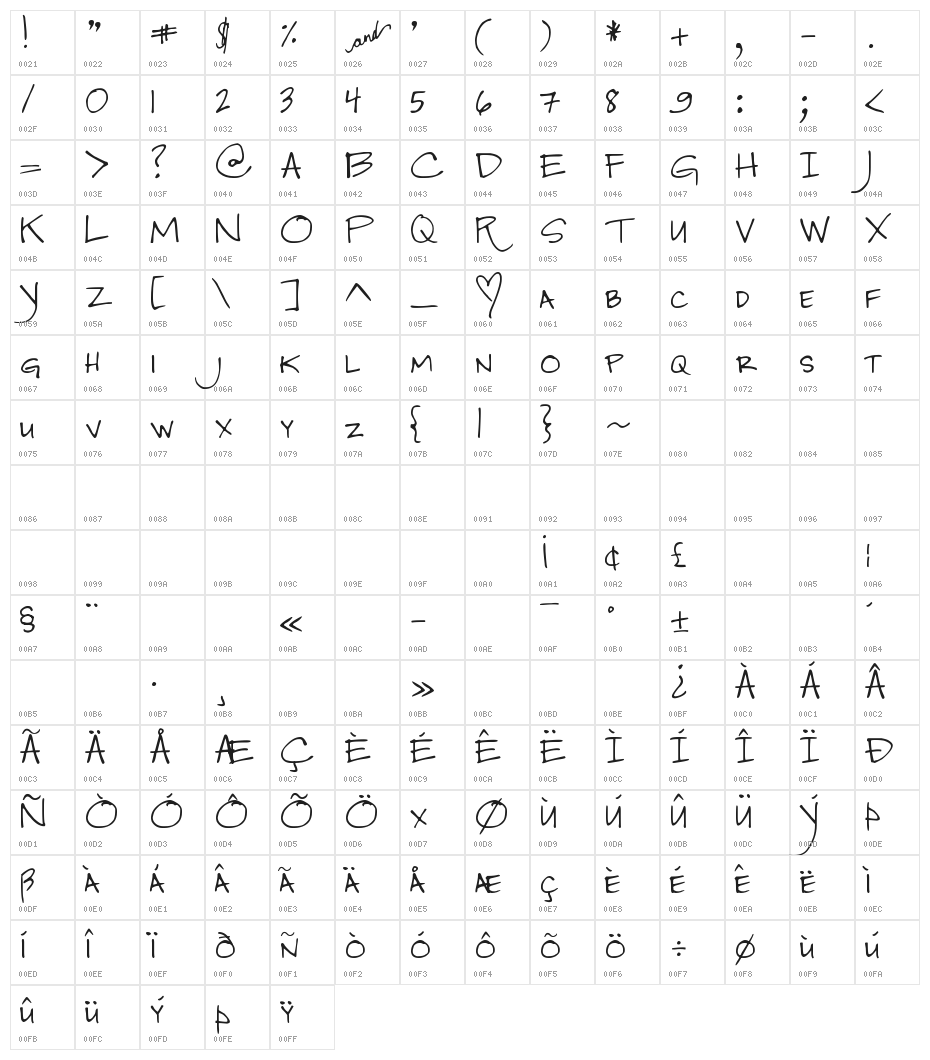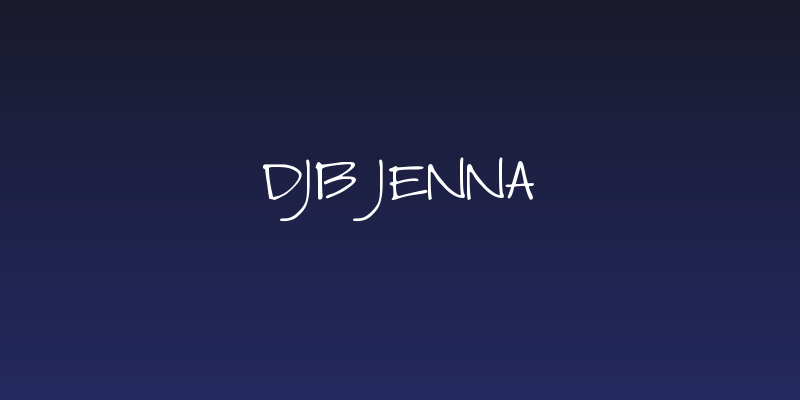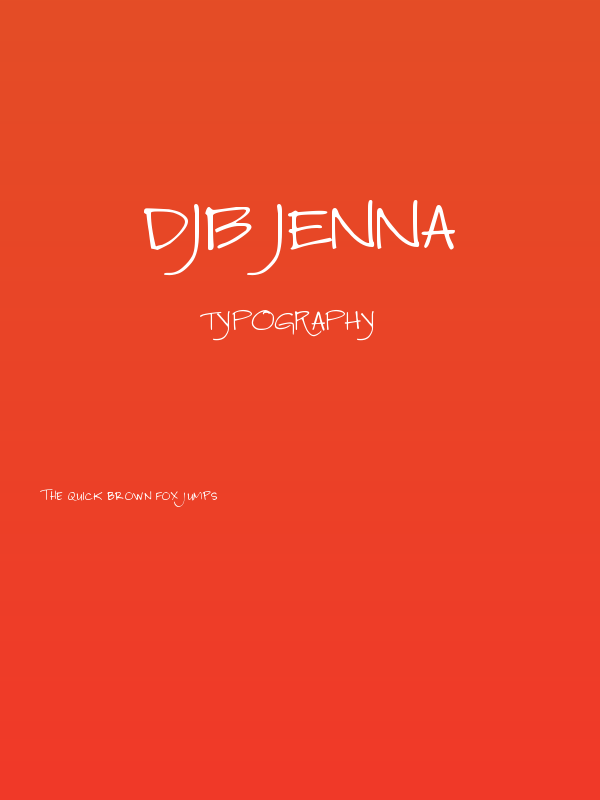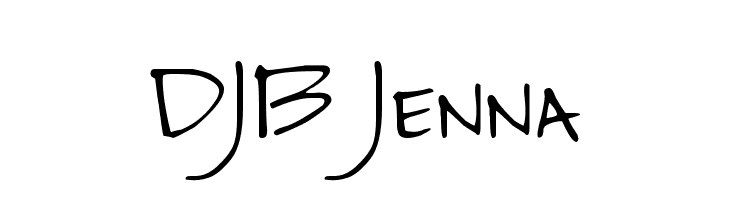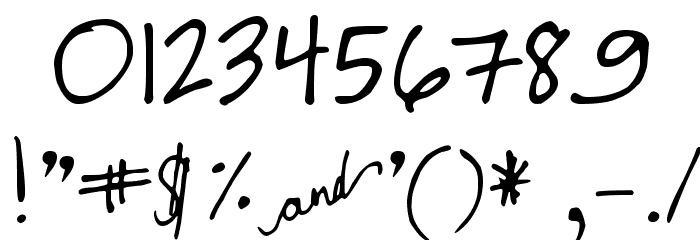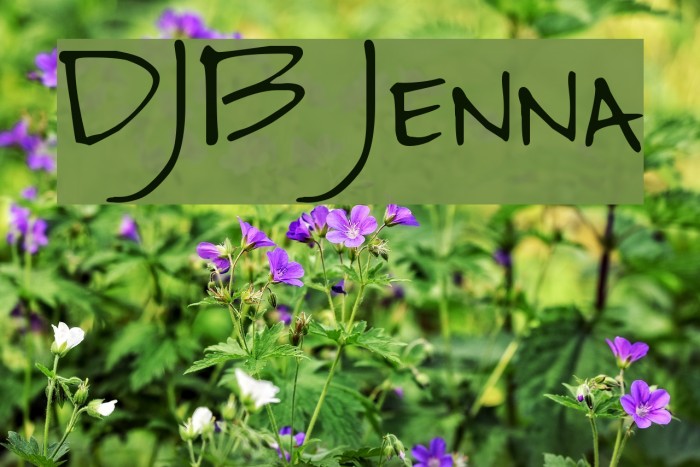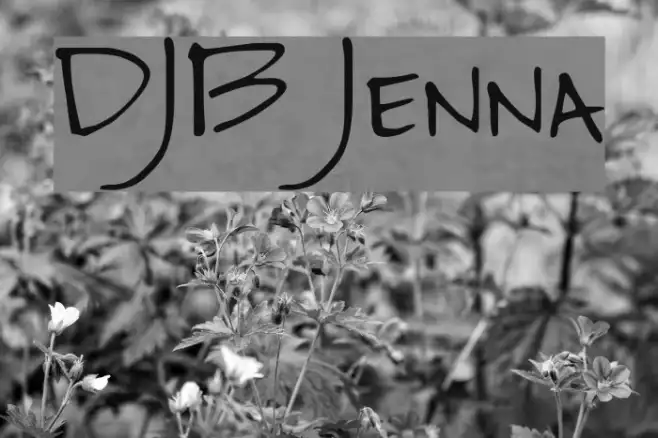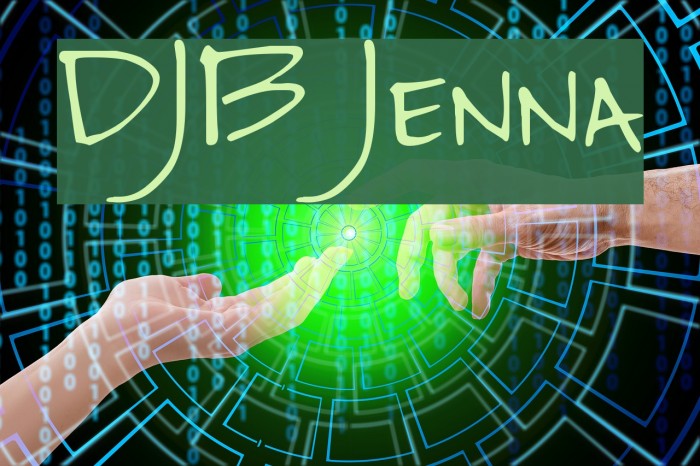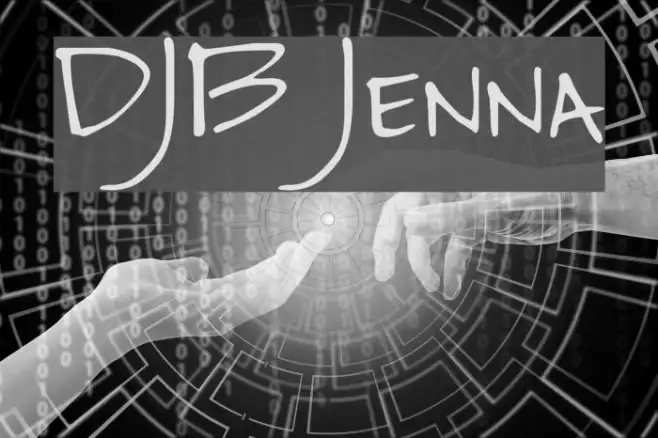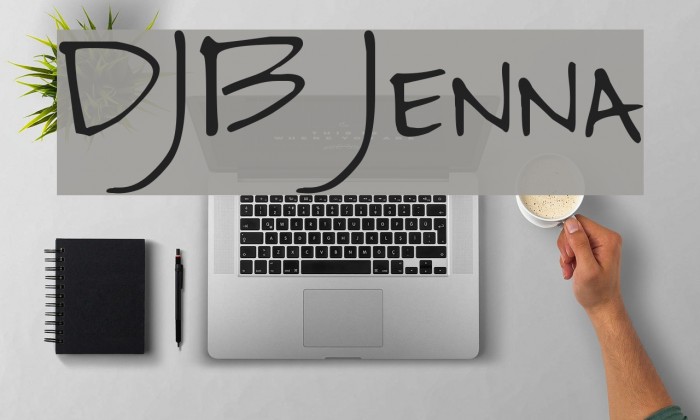
DJB Jenna Font
DJB Jenna Description
This font features a playful and informal handwritten style, characterized by its smooth, flowing lines and slightly irregular shapes. The uppercase letters are bold and prominent, while the lowercase letters maintain a consistent yet casual appearance. Numbers and special characters follow the same whimsical style, making the font versatile for various creative applications. Its overall look is friendly and approachable, suitable for projects that require a personal touch. The strokes are consistent in width, providing a balanced and harmonious appearance across all characters.
| Use Case | Headlines, Invitations, Personal projects |
| Proposed Projects | Ideal for greeting cards, invitations, personal branding, and playful graphic design projects. |